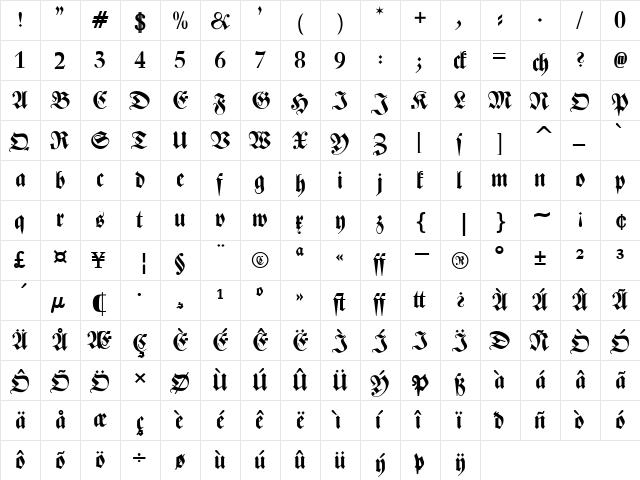
Zentenar Fraktur Bold
| Foundry | Typographer Mediengestaltung |
| Designer | Friedrich Hermann Ernst Schneidler |
Design Context for Zentenar Fraktur Typeface
Zentenar Fraktur channels the dramatic heritage of Fraktur and Gothic scripts, bringing a sense of historical gravitas to any design. Its bold stroke weight gives it real presence on the page.
A natural fit for music packaging, gothic editorial design, and any project that needs historical weight.
Font Pairing: Pair with a clean neutral sans-serif for body copy to let Zentenar Fraktur's character lead without overwhelming the composition.
Pro Tip: Reserve Zentenar Fraktur for display and logo use — pair it with a clean sans-serif for body copy to prevent the composition from feeling oppressive.